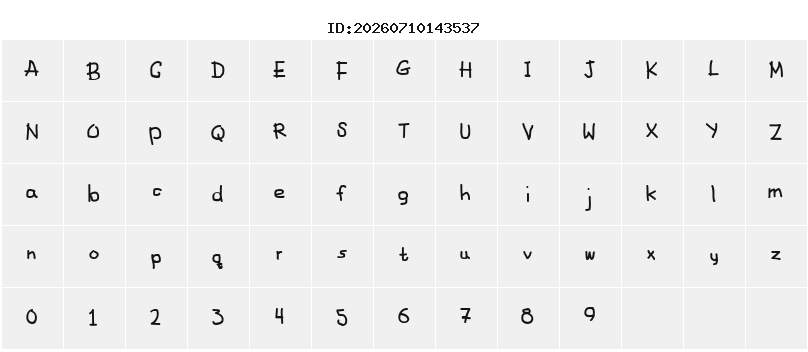
Fancy Footwork 2 Preview
• Font Name: Fancy Footwork 2
• Font ID: Fancy Footwork
• Full Font Name: Fancy Footwork 2
• Version: 2
• PostScript Name: FancyFootwork2
• Character Count: 106
About Fancy Footwork 2.ttf
Fancy Footwork 2.ttf is a modern, elegant sans-serif font designed for ultimate readability and visual harmony. Perfect for branding, headlines, web design, and print materials.